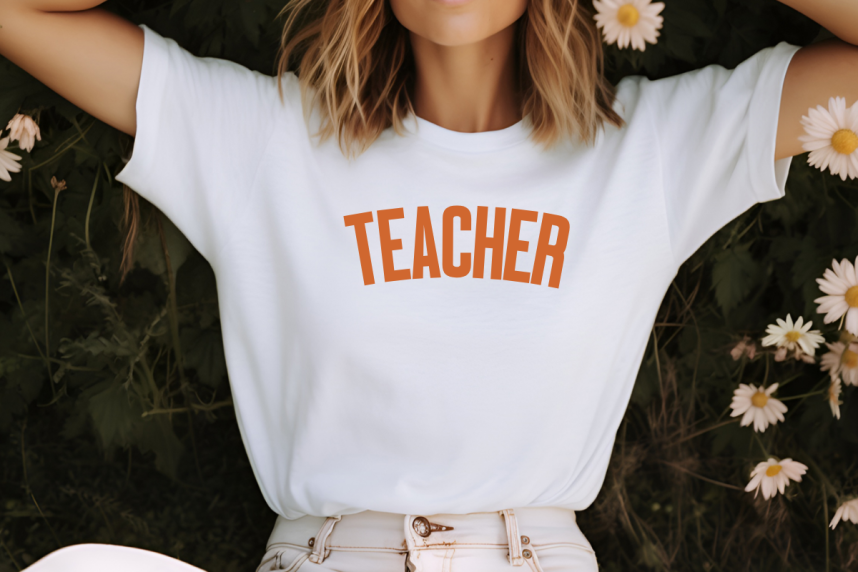
Coastal Vibes Font Free Download
Coastal Vibes Font is a playful, handcrafted display typeface that captures the carefree spirit of sun-drenched  shores and ocean breezes. Perfect for summer branding, travel posters, surf labels, and beachside merchandise.
With its versatile charm and excellent readability, This font adds an authentic coastal touch that instantly transports viewers to a seaside getaway.
NameCoastal Vibes Font
TypeSans-serif